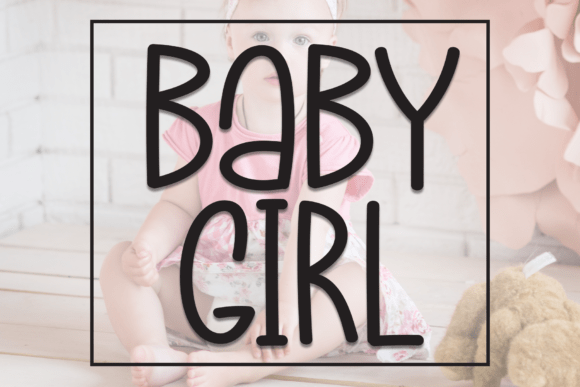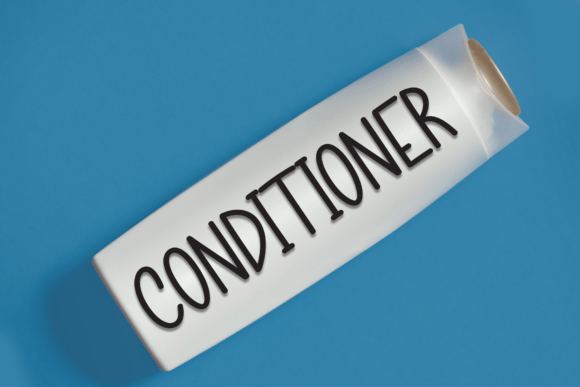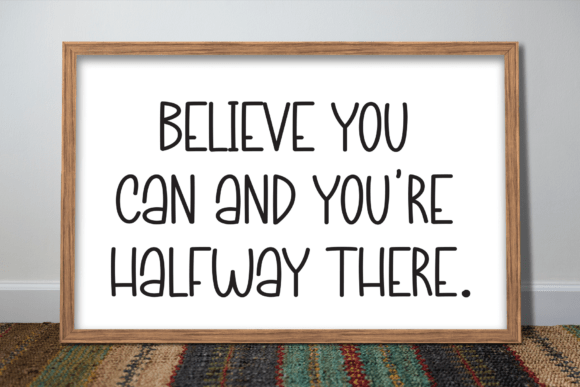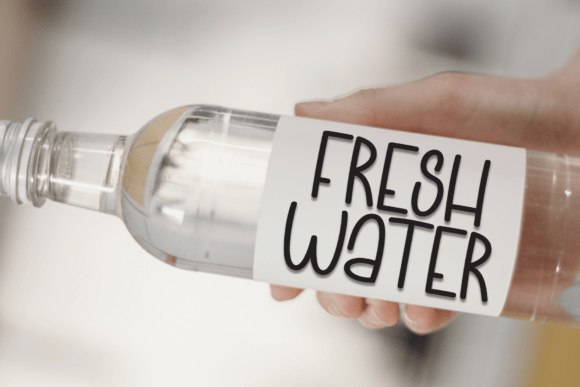
About the Baby Girl Font
Welcome to the world of Baby Girl Font, a typeface that will inspire your next great project. This handwritten display font brings charm and character to every letter. With its playful strokes and casual flow, it captures the essence of authentic handwriting—perfect for quotes, greeting cards, branding, and anything that needs a personal, heartfelt touch. Whether you’re crafting for kids or designing a modern logo, this font adds warmth and whimsy to your work.
Its playful, informal style makes it ideal for projects requiring a friendly, approachable aesthetic. Consider using it for headlines, short taglines, logos for children’s products or brands emphasizing handmade quality, and social media graphics. Avoid using it for body text or lengthy paragraphs; its casual nature makes it less legible at smaller sizes.
Pairing it with a clean sans-serif like Open Sans for body copy creates a balanced contrast between the playful display and easily readable text. For a more sophisticated feel, consider a delicate serif like Lora. Alternatively, a geometric sans-serif such as Montserrat can provide a modern counterpoint.
The font’s core personality is undeniably cheerful and youthful, making it a strong choice for brands targeting a young, female demographic or projects focusing on themes of childhood, creativity, and handmade crafts.
Baby Girl Font Example